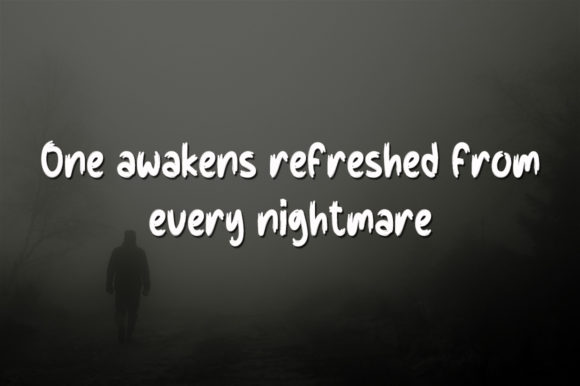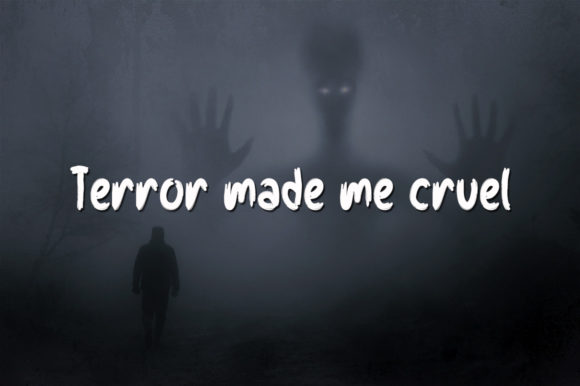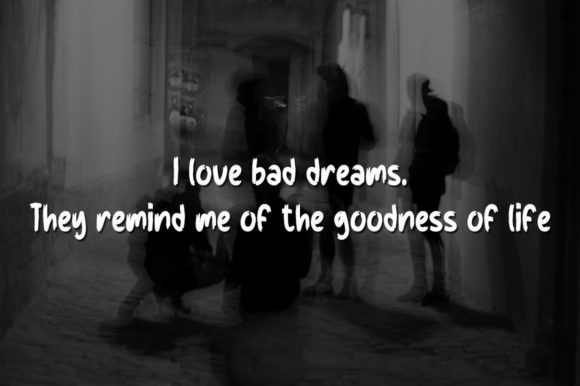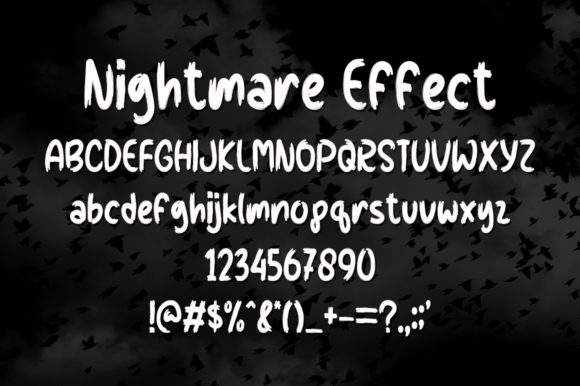
Introduction to Nightmare Effect Font
Have you ever stared at a blank canvas, trying to spark creativity for your next project? The blank page can be daunting, but it’s in these moments of uncertainty that the perfect design resource can make all the difference. For designers looking to add a personal touch to their work, a well-chosen font can elevate a design from ordinary to extraordinary.
One font that stands out in this regard is the Nightmare Effect Font – a thick, handwritten font with a down-to-earth style that’s perfect for casual design ideas. Its readable and approachable nature makes it a valuable asset for designers seeking to create high-quality, engaging content.
Key Features of Nightmare Effect Font
- Unique, eerie aesthetic suitable for creative projects requiring a haunting atmosphere
- Perfect for adding a touch of darkness and mystery to your design, making it ideal for horror-themed projects or those requiring a dramatic effect
Honest Review: Nightmare Effect Font
I recently came across the Nightmare Effect Font and I’m excited to share my thoughts on this design resource. The first thing that caught my attention was its unique and bold style, perfect for adding a touch of edginess to my creative project. The font’s transparent background makes it easy to work with, and the free download option is a huge plus!
Here are some things that work well with the Nightmare Effect Font:
- ✨ Unique and bold style that adds a touch of edginess to any design
- ✨ Transparent background makes it easy to work with
- ⚠️ Limited character set, which may not be suitable for longer text-based projects
- ⚠️ May not be as versatile as other fonts, limiting its use in certain design contexts
Overall, I’m impressed with the Nightmare Effect Font’s unique style and free download option. While it may have some limitations, it’s an excellent addition to any designer’s toolkit. With some creative problem-solving, I’m confident that this font can be used in a variety of design projects.
The Nightmare Effect Font is commonly used in horror-themed designs, such as movie posters or haunted house decorations. It’s also used in creative projects that require a spooky or eerie atmosphere, such as Halloween-themed designs or paranormal-themed designs.